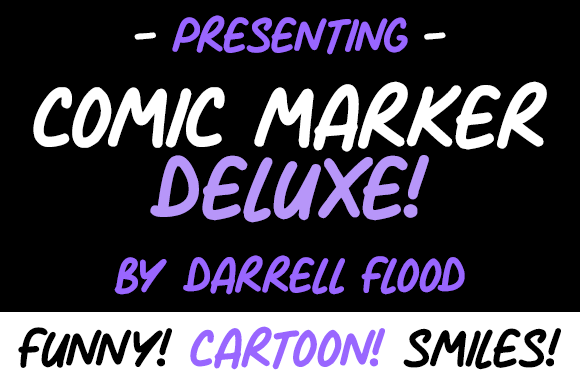
The Perfect Brush Stroke for Your Next Design
Have you ever sat staring at a blank page, waiting for that perfect idea to strike? You know, the one that will set your design apart from the rest and leave a lasting impression on your audience? It’s that moment of creative clarity that makes all the late nights and endless cups of coffee worth it. For designers, this moment is what drives us to push the boundaries of innovation and style.
That’s where the Comic Marker Deluxe Font comes in – a fun and bold font that adds a splash of authenticity to any design idea. Whether you’re working on a comic book, a graphic novel, or even a simple illustration, this font is the perfect addition to bring your vision to life. Its unique character and playful flair make it a valuable tool for designers looking to add some personality to their work.
Comic Marker Deluxe Font Key Features
- Unique Characteristics: The Comic Marker Deluxe Font features a unique, hand-drawn style with varying line widths, giving it a dynamic and expressive feel.
- Characters: The font includes a wide range of characters, including uppercase and lowercase letters, numbers, punctuation marks, and special characters.
Designer Review: Comic Marker Deluxe Font
As a designer, I was excited to dive into the world of Comic Marker Deluxe Font. ✨ The first thing that caught my attention was its playful and fun vibe. The font is perfect for comic books, children’s books, and even advertising materials. The character set is extensive, making it a great choice for a wide range of projects.
The font’s versatility is also a major plus. ✨ It can be used for titles, headings, and even body text. The bold lines and playful curves add a touch of whimsy to any design. I also appreciate the fact that it’s highly customizable, allowing me to adjust the line width and spacing to suit my project’s needs.
- ⚠️ Limited language support: While the font includes a wide range of characters, it’s not perfect for languages that require more complex typography, such as Arabic or Chinese.
- ⚠️ Not suitable for formal or professional designs: The font’s playful nature makes it less suitable for formal or professional projects, such as business reports or academic papers.
Overall, I’m impressed with Comic Marker Deluxe Font. While it may have some limitations, its versatility and customizability make it a great choice for designers looking to add a playful touch to their projects. With a little creativity, this font can really shine and add a unique touch to any design.
Comic Marker Deluxe Font is ideal for:
1. Cartoon-style illustrations and comics.
2. Children’s book illustrations and educational materials.
3. Graphic novels and comic strips.
4. Advertising and marketing materials with a playful, humorous tone.